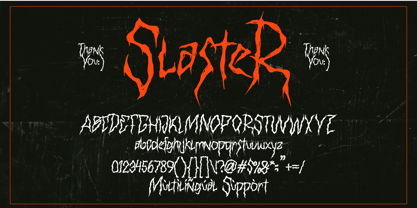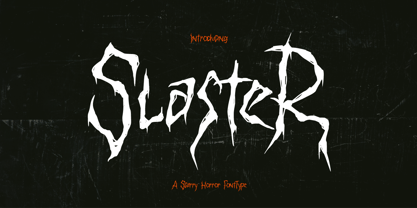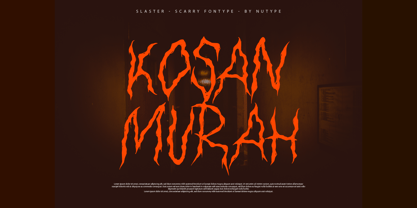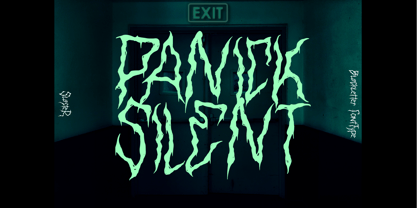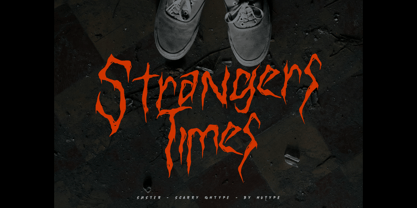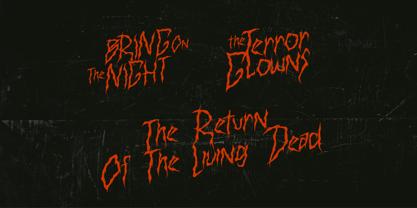
Slaster
The Slaster Font Family was designed by ryan creative and published by ryan creative. Slaster contains 1 styles. More about this family
Slaster is a horror display typeface with sharp, distorted, and aggressive strokes inspired by slasher movies, dark fantasy, and underground aesthetics. This font delivers a creepy, chaotic, and energetic look that is perfect for horror posters, movie titles, game logos, metal band artwork, Halloween designs, YouTube thumbnails, apparel, album covers, and branding projects that need a strong scary atmosphere FEATURES Complete Uppercase & Lowercase Set Numbers, Symbols & Punctuation Multilingual Language Support Unique Horror Display Style Fully Compatible with Adobe, Corel, Canva Perfect for Horror Posters, Logos, Games, Movies, and Branding Thank you for downloading Slaster. This typeface is crafted to give your projects a bold and frightening personality. We hope it becomes a valuable part of your design toolkit and helps you create powerful, memorable visuals.